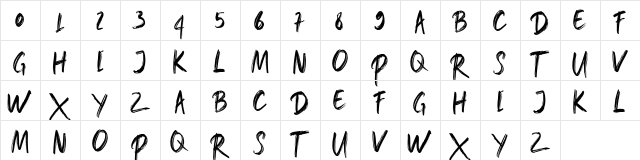
HONGKONG Regular
| Foundry | MrLetters |
| Designer | MrLetters |
Design Context for HONGKONG Typeface
HONGKONG is a composed and adaptable typeface that performs quietly and consistently across a wide range of design contexts.